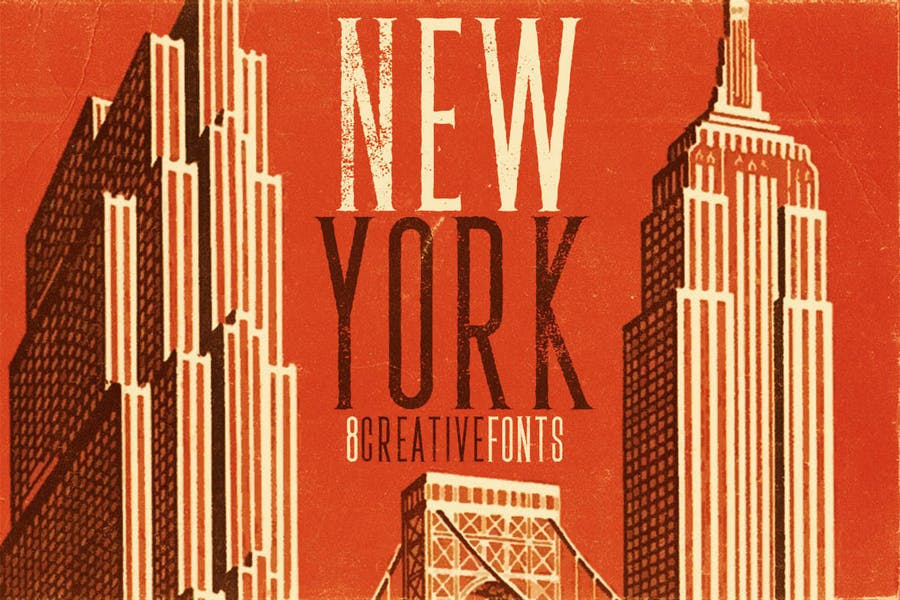
New York Font
New York Font is perfect for metropolitan lifestyle brands, urban architecture firms, sophisticated financial services, cosmopolitan fashion labels, upscale dining establishments, contemporary art galleries, prestigious law firms, luxury real estate marketing, elite business communications, and distinguished city-centered organizations.
New York Font creates excitement because it embodies the dynamic energy and sophisticated elegance of metropolitan life with its bold letterforms and city-inspired character design. The font's confident proportions and urban aesthetic instantly convey ambition and cosmopolitan sophistication, making any brand appear successful and authentically metropolitan. Its carefully crafted city details and ambitious character create an immediate sense of urban excellence that captivates audiences seeking metropolitan experiences, city quality, and products that celebrate the transformative power of urban living and cosmopolitan achievement.
The New York Font family includes multiple weights and styles: Thin, Light, Regular, Medium, Bold, Black, Ultra Black, Italic variants for each weight, Condensed, Extended, and Metropolitan versions. Each variant maintains the font's signature urban character while offering comprehensive typographic flexibility for sophisticated city brand systems and metropolitan applications.
This powerful typeface brings the authentic spirit of metropolitan excellence into contemporary urban design with remarkable sophistication and city appeal. New York Font Free Download provides urban brands and metropolitan organizations with access to premium city-inspired typography that embodies the essence of cosmopolitan success and urban sophistication. The font's ambitious design and metropolitan authenticity make it ideal for businesses seeking to establish meaningful connections with city-minded audiences who appreciate urban culture, metropolitan lifestyle, and the transformative power of city living that drives innovation and success. Whether you're developing brand identities for financial companies, creating materials for urban development projects, designing communications for metropolitan services, or producing content for cosmopolitan lifestyle brands, this font delivers the dynamic urban atmosphere that resonates with audiences seeking genuine metropolitan experiences, city quality, and the ambitious energy that comes from embracing the fast-paced excellence of metropolitan living. Its versatile design ensures outstanding performance across both sophisticated printed materials and dynamic digital city platforms while maintaining the character of authentic metropolitan typography. The font excels in applications requiring urban credibility and metropolitan appeal. City business professionals appreciate its ability to convey metropolitan authenticity while remaining highly functional for various urban communications and cosmopolitan promotional materials. The comprehensive character set includes urban symbols and extensive international language support, making it perfect for global metropolitan brands and international city organizations seeking to communicate authentic urban values, metropolitan excellence, and cosmopolitan sophistication to diverse worldwide audiences who embrace city living, appreciate urban culture, and value the transformative power of genuine metropolitan experience that creates opportunities through urban innovation, cosmopolitan networking, and the unlimited potential of city life that drives success and achievement in the world's greatest metropolitan centers.